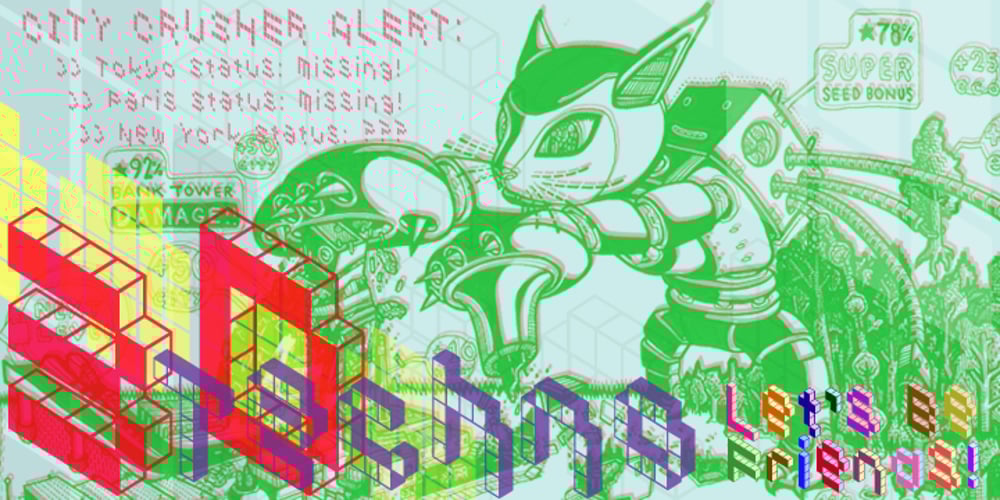
3D Techno
3D Techno font
3D Techno Font Family was designed by Luke William Turvey and published by Okaycat. 3D Techno contains 4 styles and family package options. 3D Techno is a font made entirely of little cubes! Combine 3-D and flat styles, or use these styles separately….. many different looks can be created! There is a sprinkling of dingbats scattered around the alternates, just there to make this font extra fun and useful . Check it out! 3D Techno contains West European diacritics and ligatures, suitable for multilingual environments and publications.